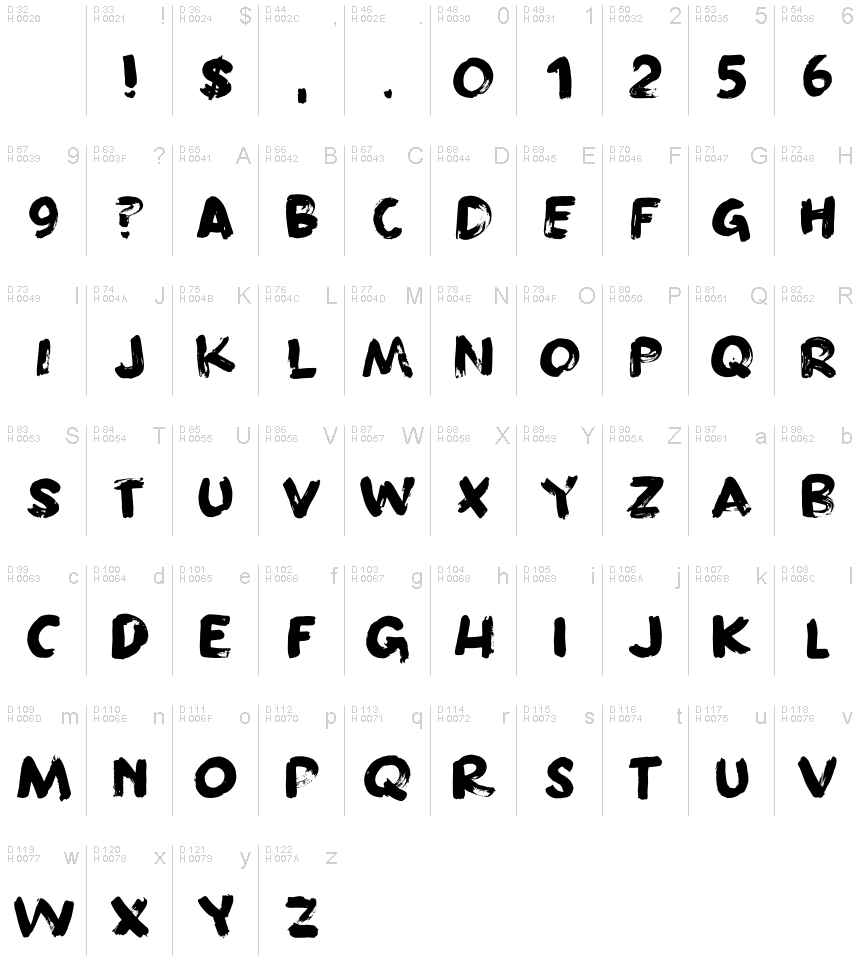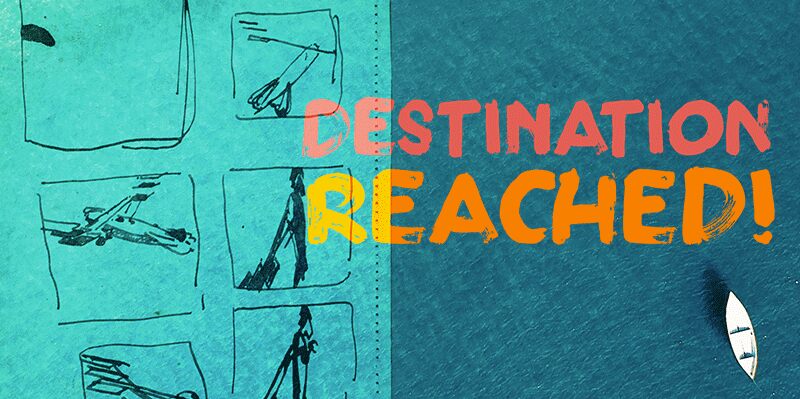
Destination Reached DEMO Regular
Destination Reached font by Hanoded is a bold brush typeface that exudes energy and spontaneity. Its handcrafted look, with dynamic strokes and vibrant character, makes it an ideal choice for projects seeking a personal touch. Perfect for eye-catching headlines, event posters, or creative branding, its striking style demands attention.